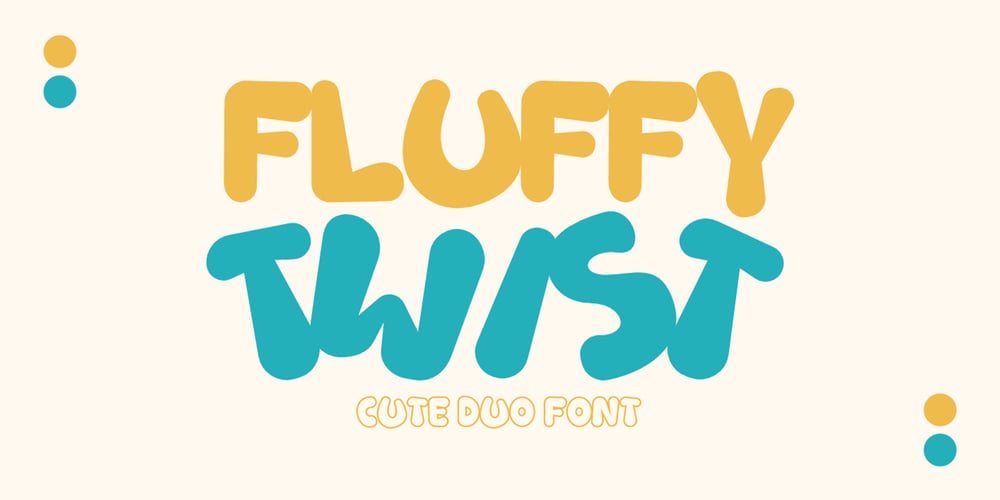
Fluffy Twist Font Family was designed by Sipanji and published by Sipanji21. Fluffy Twist contains 2 styles and family package options. Fluffy Twist is a rounded, cute display font that brings a soft, friendly, and playful vibe to any design. With its smooth, curved letterforms, this font exudes a sense of warmth and approachability, making it perfect for projects aimed at children, family, or any theme that calls for a cheerful and lighthearted touch. Fluffy Twist also includes stylistic alternates, providing extra creative options to customize and enhance your designs. Whether you’re creating logos, packaging, posters, or social media graphics, this versatile font adds a fun, bubbly feel that’s sure to grab attention. Ideal for kid-centric projects, baby products, playful branding, or anything that needs a dose of cuteness and charm.